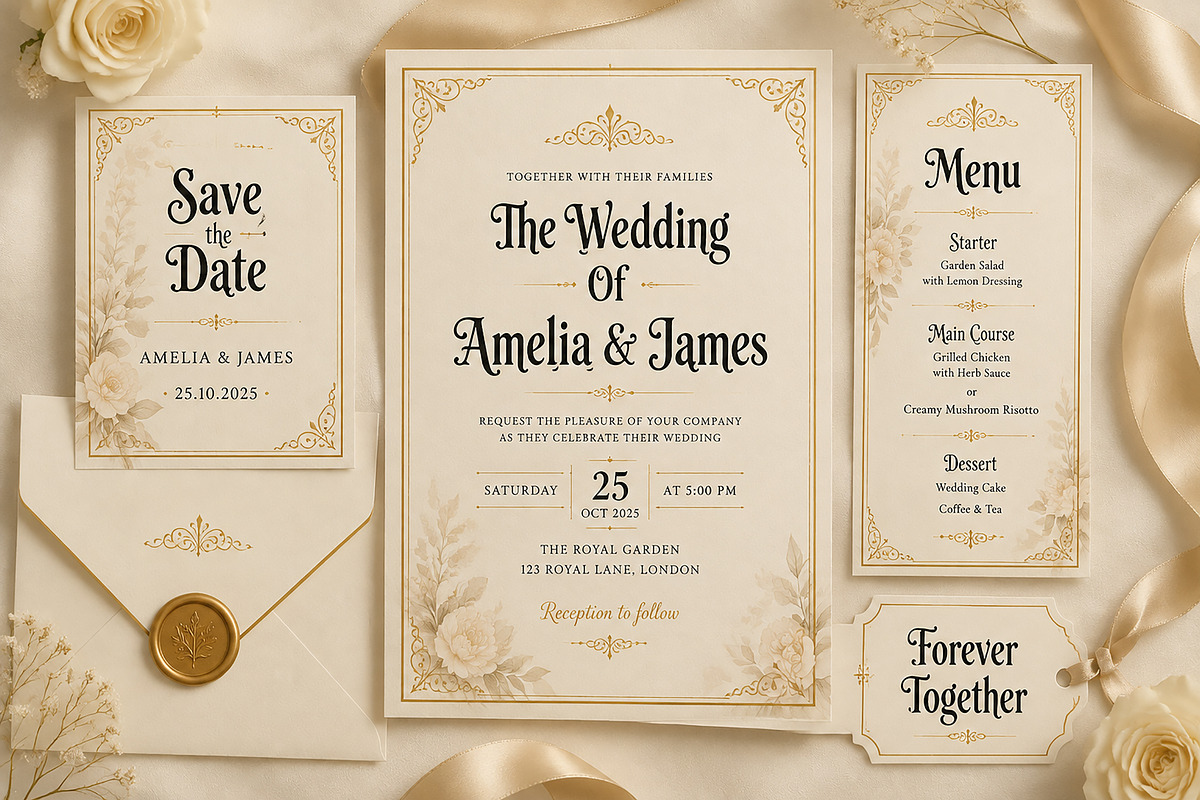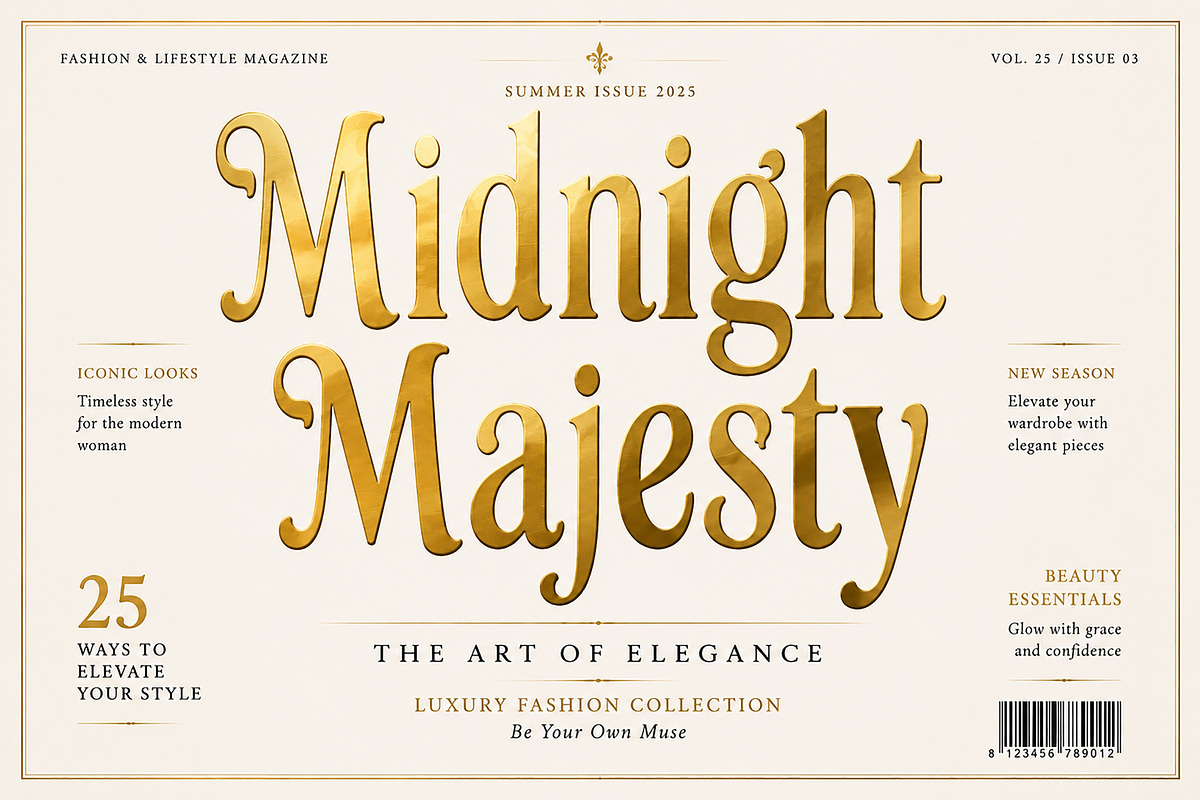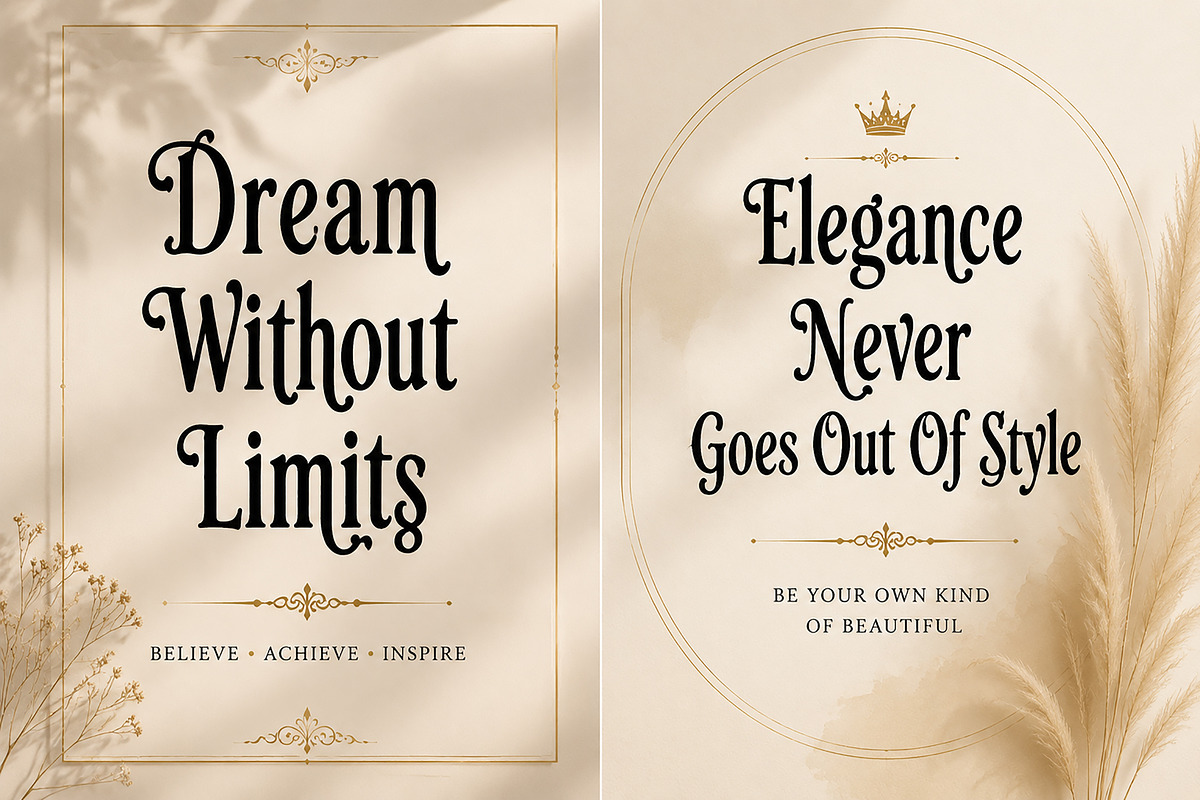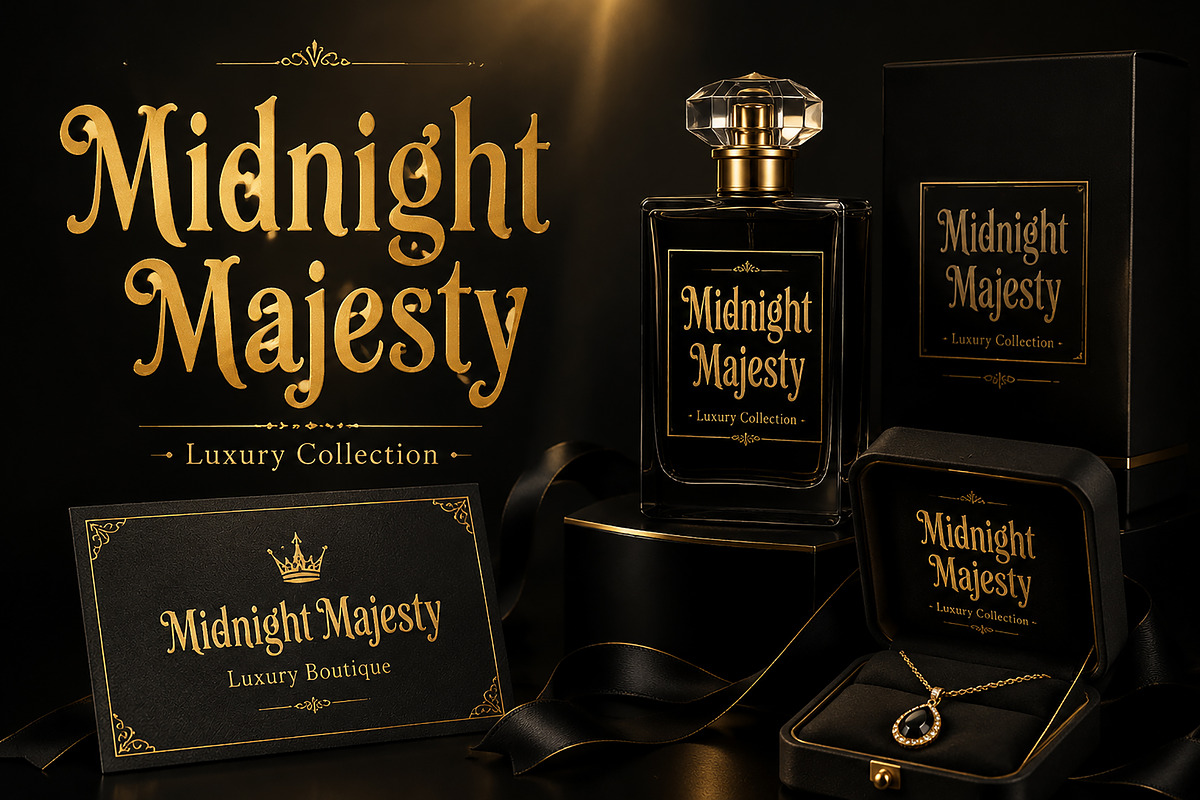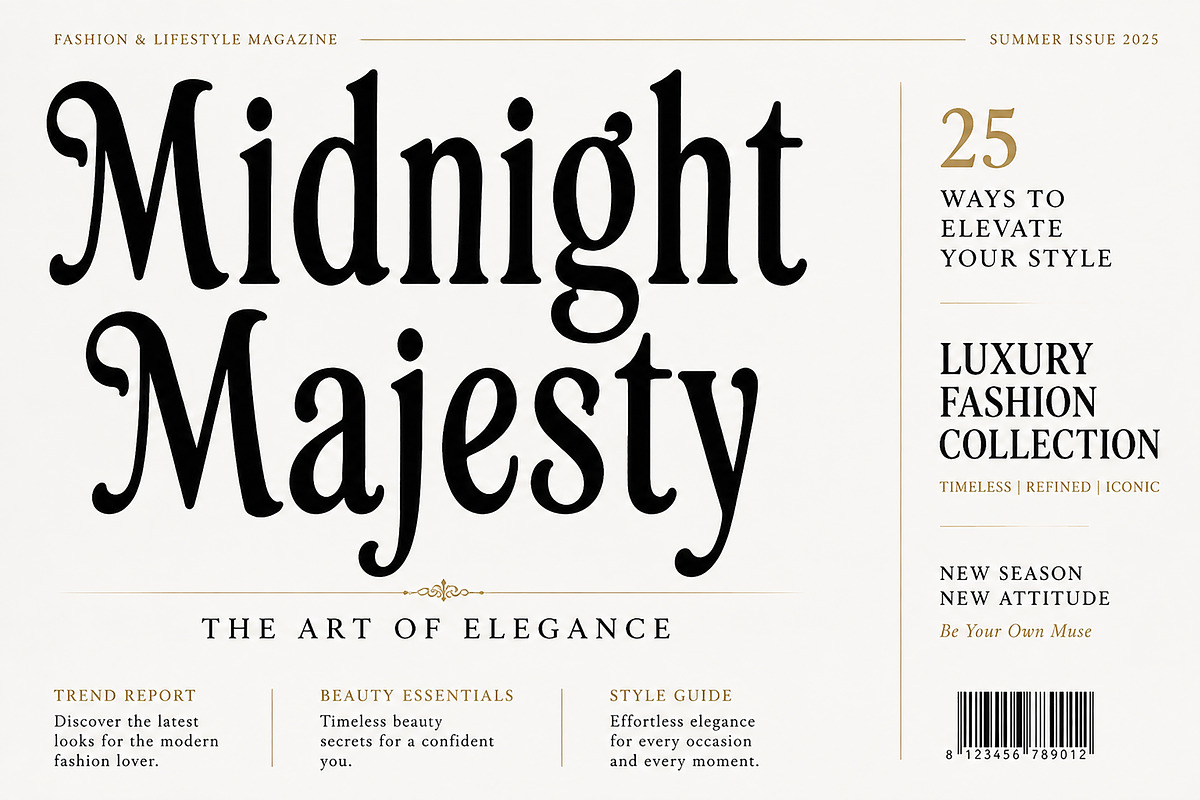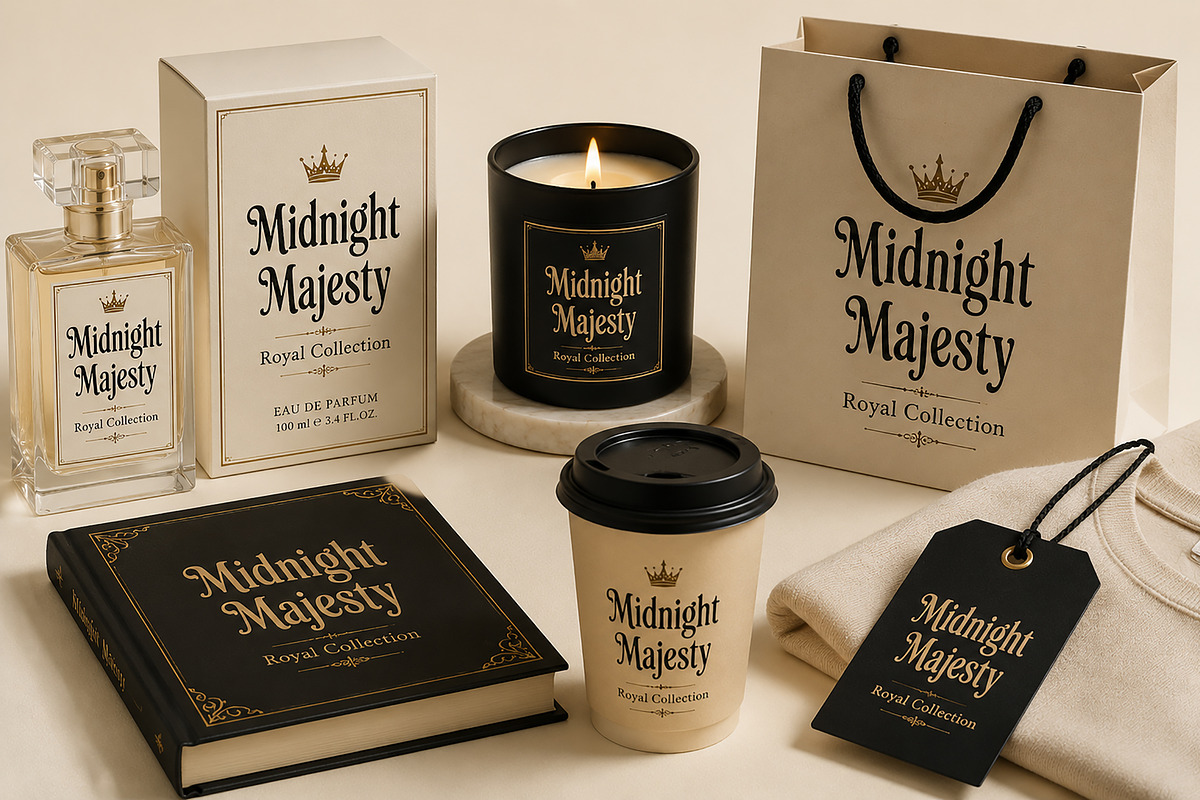
Midnight Majesty – Luxury Font
Midnight Majesty – Luxury Gothic Display Font
Midnight Majesty is an elegant and sophisticated display font designed to bring a luxurious, royal, and timeless feeling to your creative projects. With its unique decorative letterforms, graceful curves, and vintage-inspired character, this font is perfect for creating premium branding, fashion designs, wedding stationery, packaging, editorial layouts, and luxury product identities.
Inspired by classic elegance and modern luxury, Midnight Majesty adds a refined personality to logos, invitations, posters, social media designs, book covers, beauty brands, and boutique collections.
Whether you are designing a high-end fashion label, a romantic wedding invitation, a luxury packaging concept, or an eye-catching typography artwork, Midnight Majesty helps your designs stand out with a premium handcrafted appearance.
Luxury Brand Logos
Fashion & Beauty Branding
Wedding Invitations
Editorial Magazine Designs
Perfume & Cosmetic Packaging
Boutique Identity
Posters & Titles
Product Labels
Merchandise Designs
✓ Elegant Gothic Display Style
✓ Luxury & Vintage Inspired Design
✓ High-Quality Decorative Letterforms
✓ Perfect for Branding & Headlines
✓ Professional Typography Look
✓ Easy to Use in Modern Design Projects